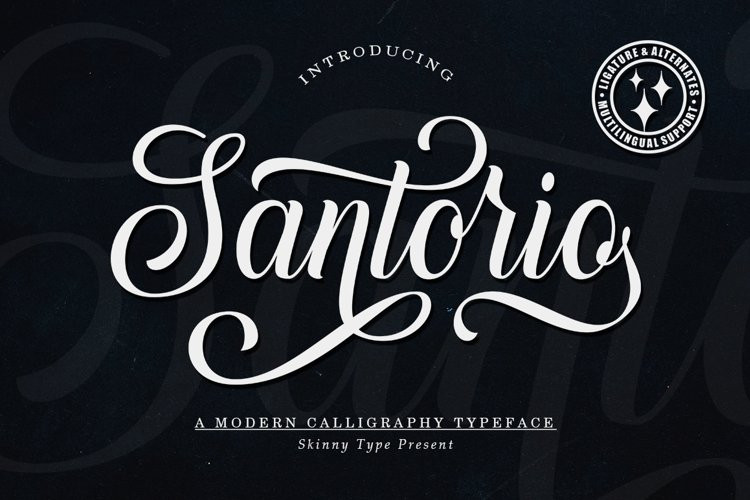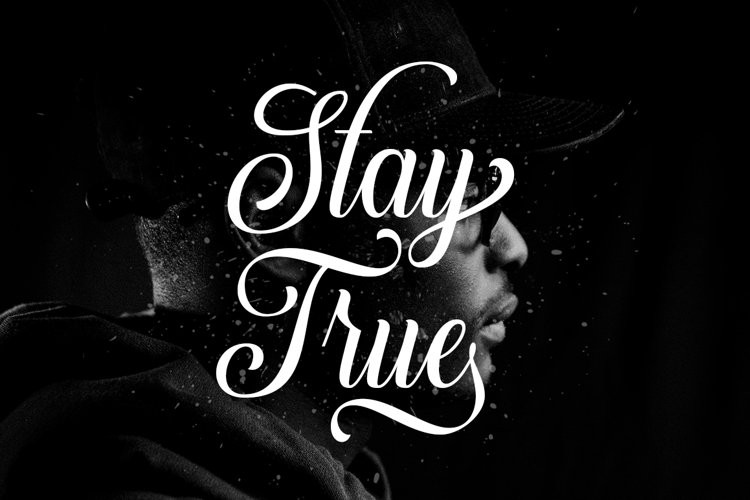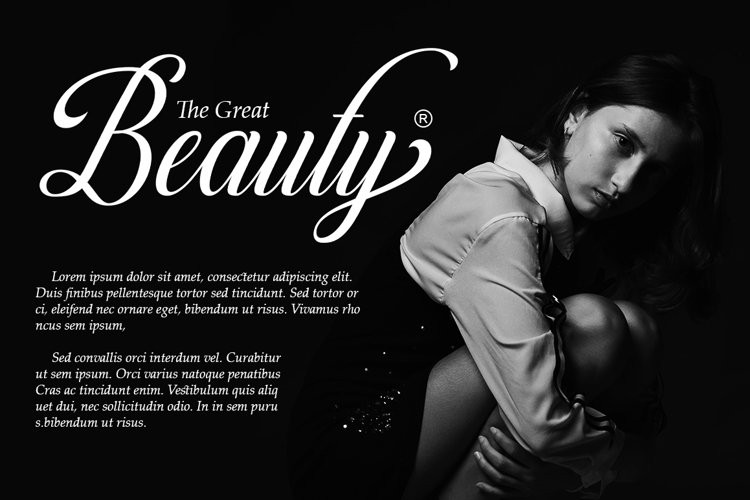
Santorio Font
Santorio FontPlease welcome our newest script typeface, Santorio Script, a beautiful script typeface with unique alternatives and strokes. This font is very suitable to be applied especially to logos, and various other formal forms such as invitations, labels, logos, magazines, books, greeting / wedding cards, packaging, fashion, make up, stationery, novels, labels or other types of fonts. advertising purposes.